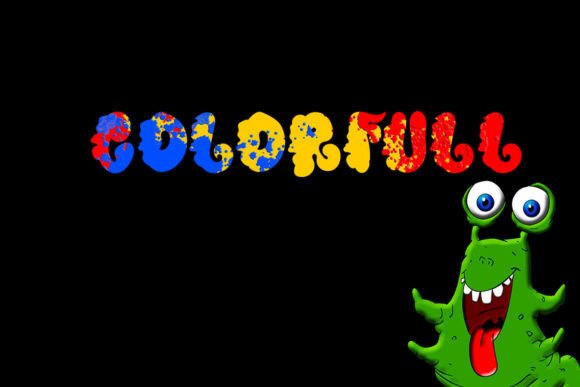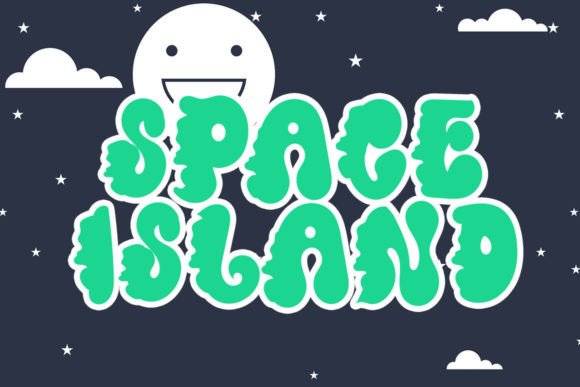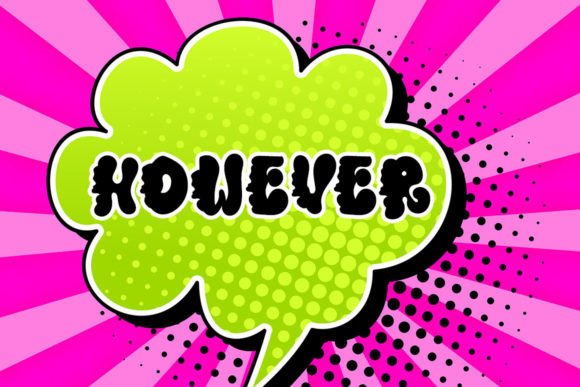
Introduction to Meltyn Font
Meltyn is a beautiful and sweet display font.
It is fresh, clean, and elegant This font will look amazing in a great number of projects, both formal and informal.
Key Features of Meltyn Font